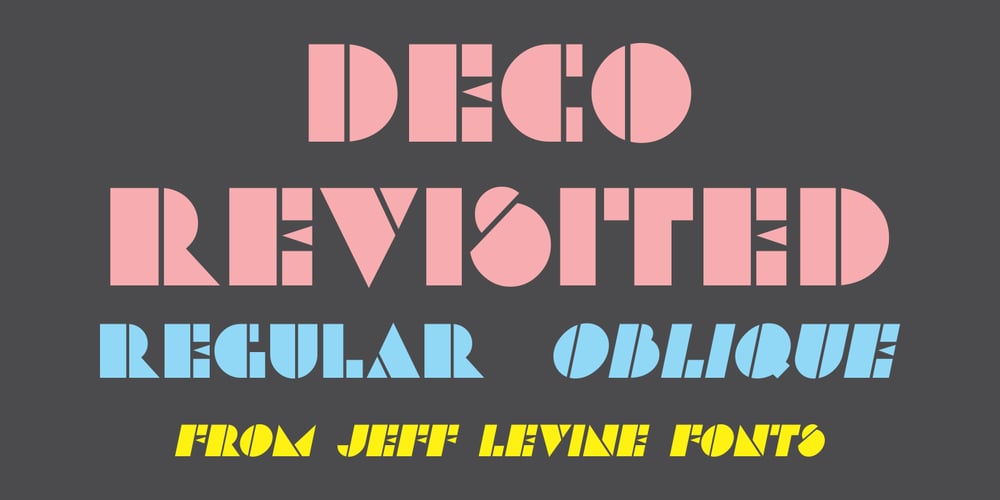
Deco Revisited JNL
Deco Revisited JNL font
Deco Revisited JNL Font Family was designed by Jeff Levine and published by Jeff Levine. Deco Revisited JNL contains 2 styles and family package options. Inspired by a retro Art Deco poster as well as many of the true classic Art Deco type designs of the 1930s and 1940s, Deco Revisited JNL is a bold, black, stencil-influenced design with no counters. Although being a contemporary design, its use in any retro project will truly evoke a feeling for the “streamline” era. Deco Revisited JNL is available in both regular and oblique versions.